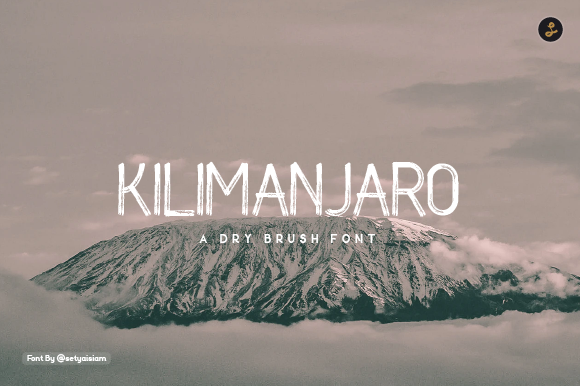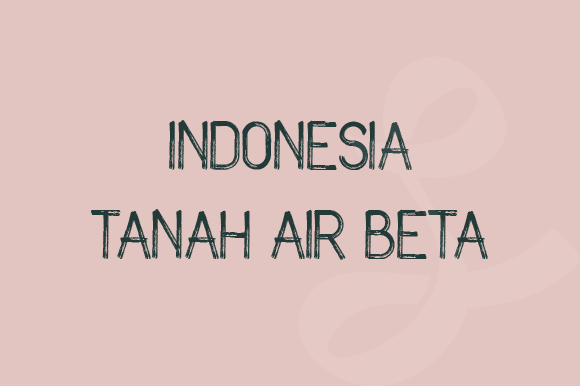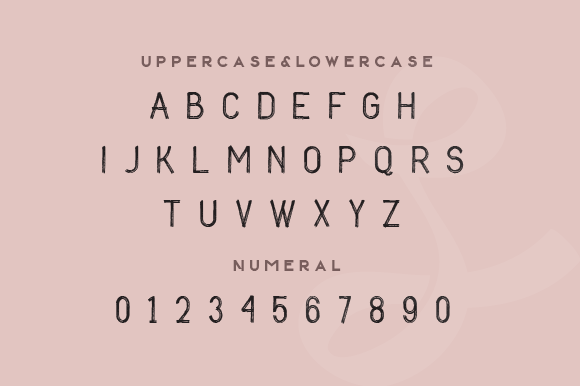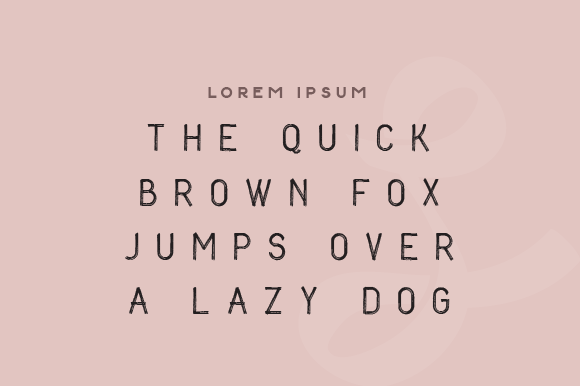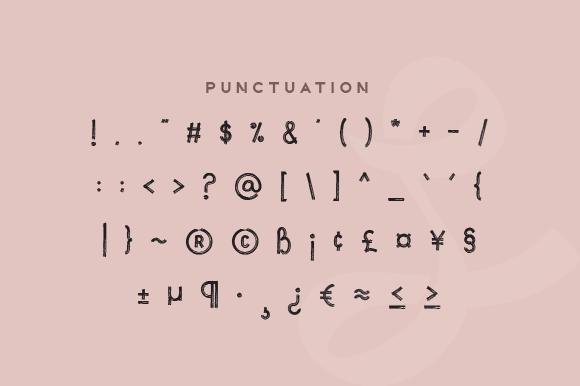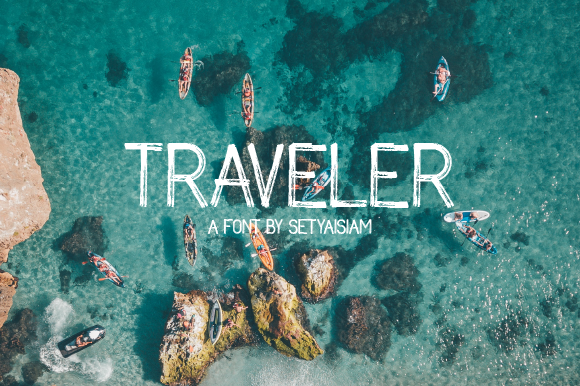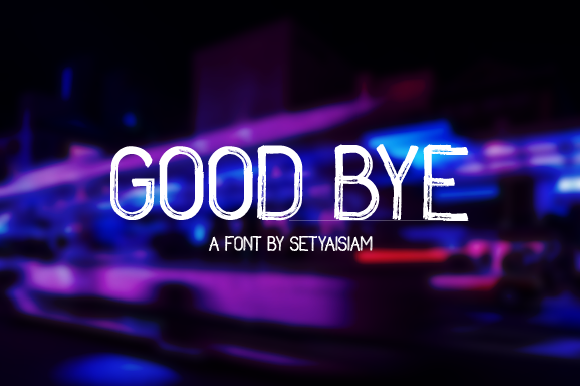
Kilimanjaro Font
About Kilimanjaro Font
Kilimanjaro is a magical handwritten font carefully created with a touch of elegance. This font will look outstanding in any context, whether it’s being used on busy backgrounds or as a standalone headline!